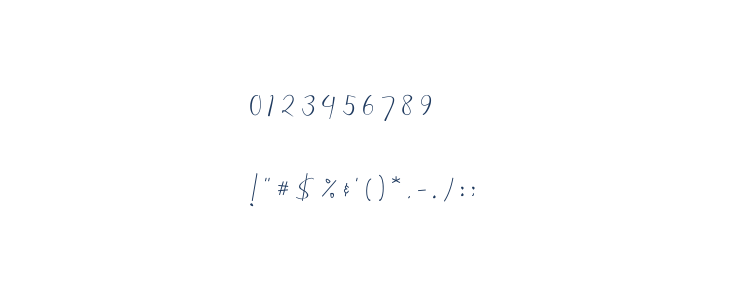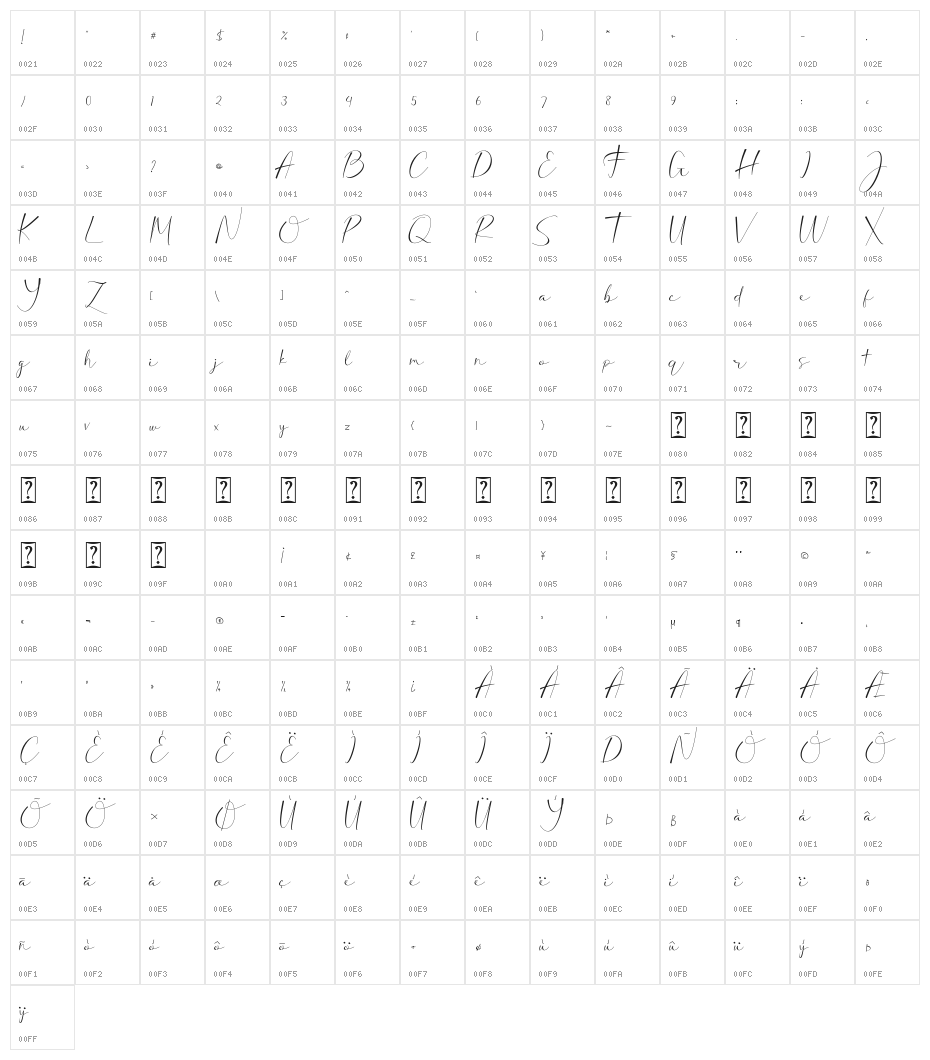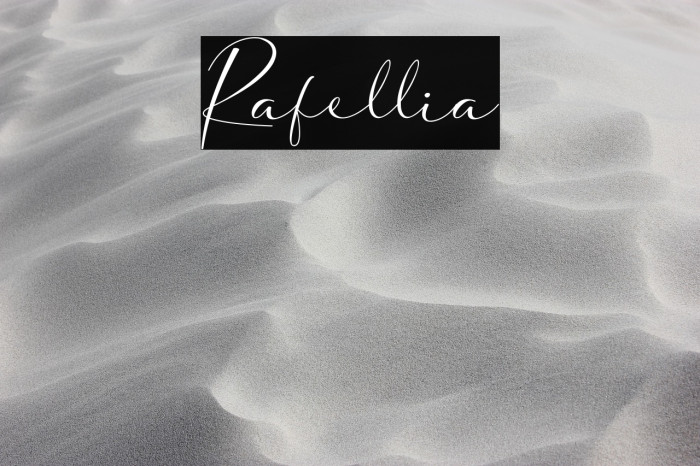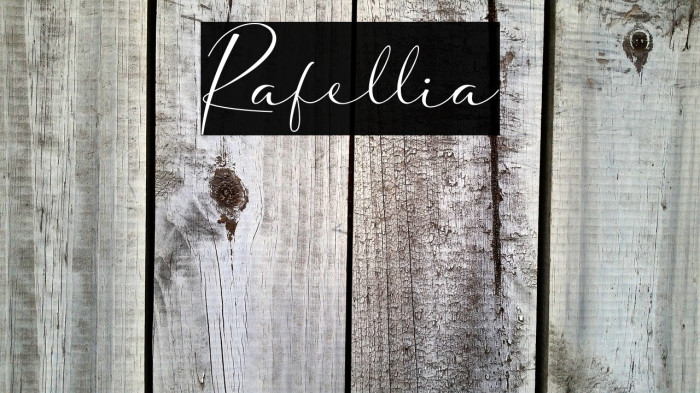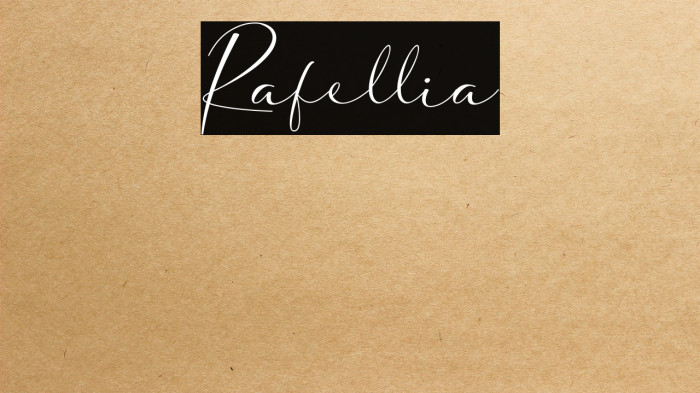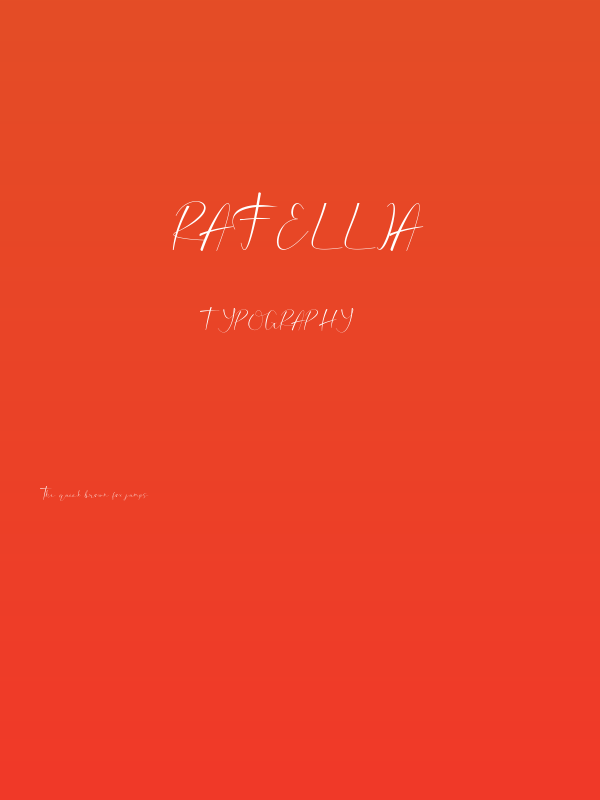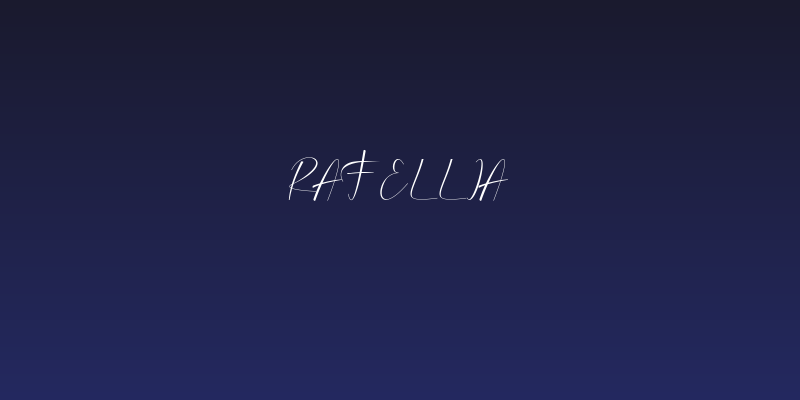
Rafellia Font
Rafellia Description
This font exudes elegance and sophistication with its flowing, cursive style. The characters are delicately crafted, featuring smooth curves and graceful lines that give it a handwritten appearance. The uppercase letters are tall and slender, with some letters like 'J' and 'Y' having extended descenders that add a touch of flair. The lowercase letters maintain a consistent flow, enhancing the script-like quality. Numbers are simple yet stylish, complementing the overall aesthetic. The special characters are thoughtfully designed to match the font's elegant theme, making it suitable for a variety of creative projects.